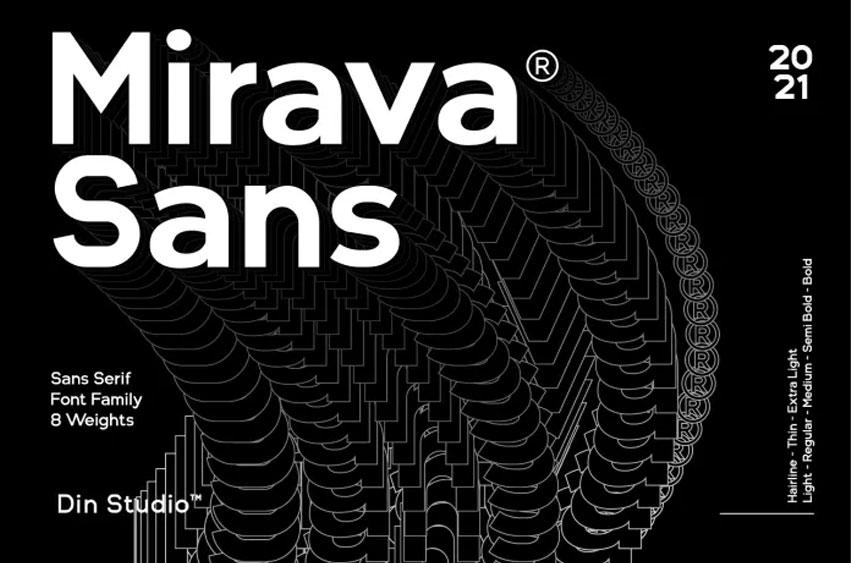
Mirava Font is a neo-grotesque typeface influenced by popular Swiss designed typefaces of the 1950’s. With this family you will get many options to maximize your designs with stylish fonts.
This font designed to bring your branding to life and add a touch of modernity, fun and style. Mirava paves the way for you to write the information you need to send out to your audience. Perfect to create amazing headings, logos, menus, social media graphics, and many more.